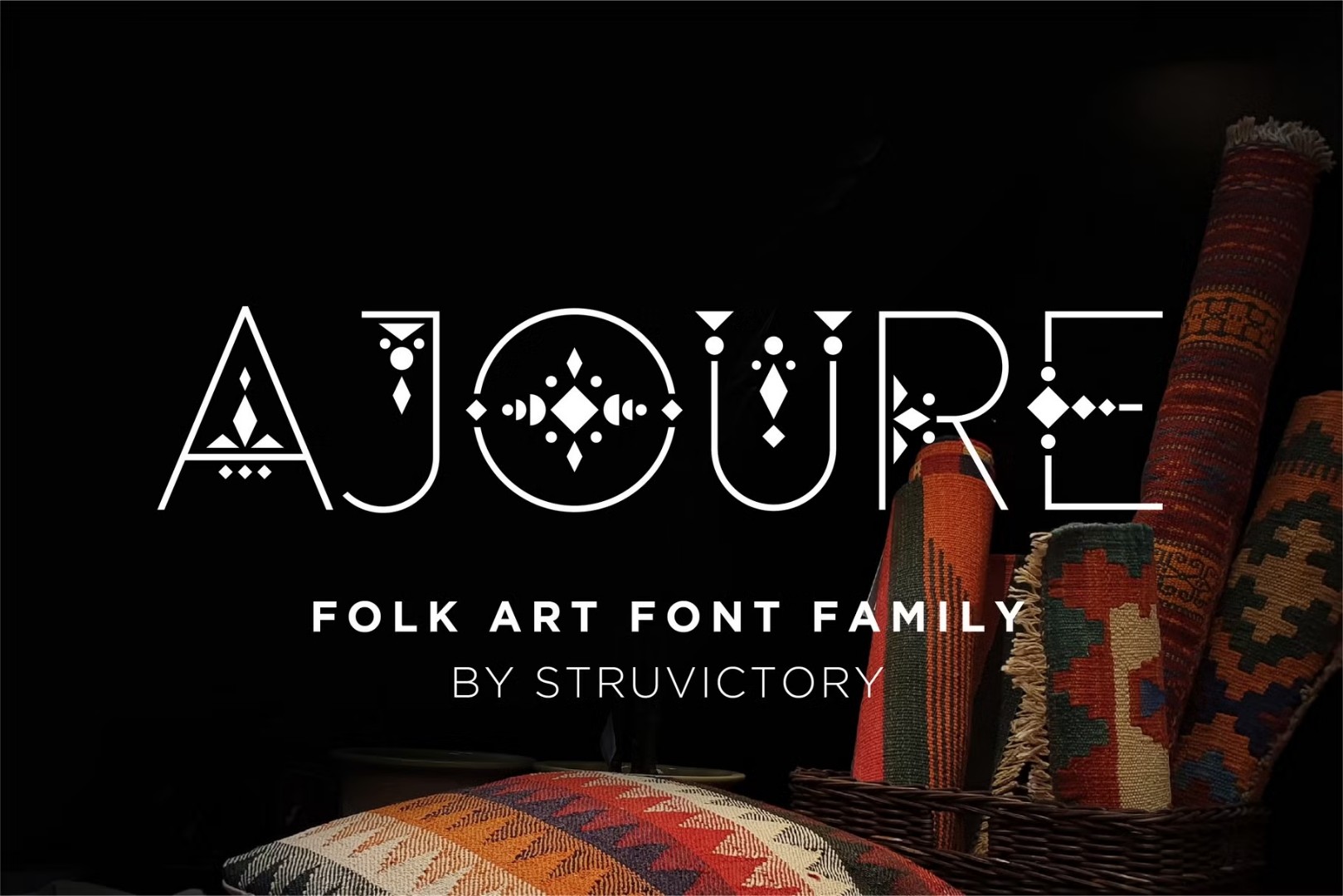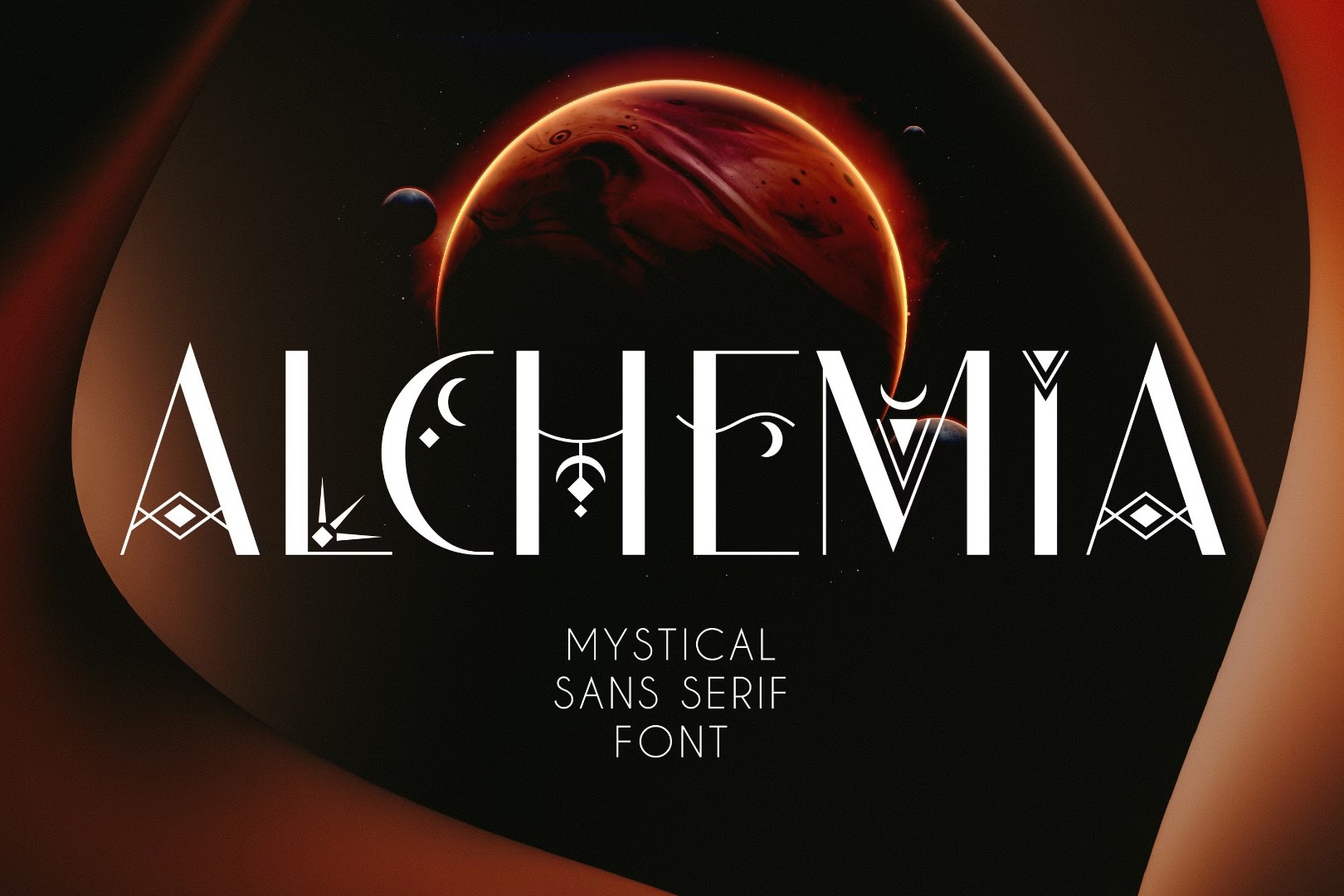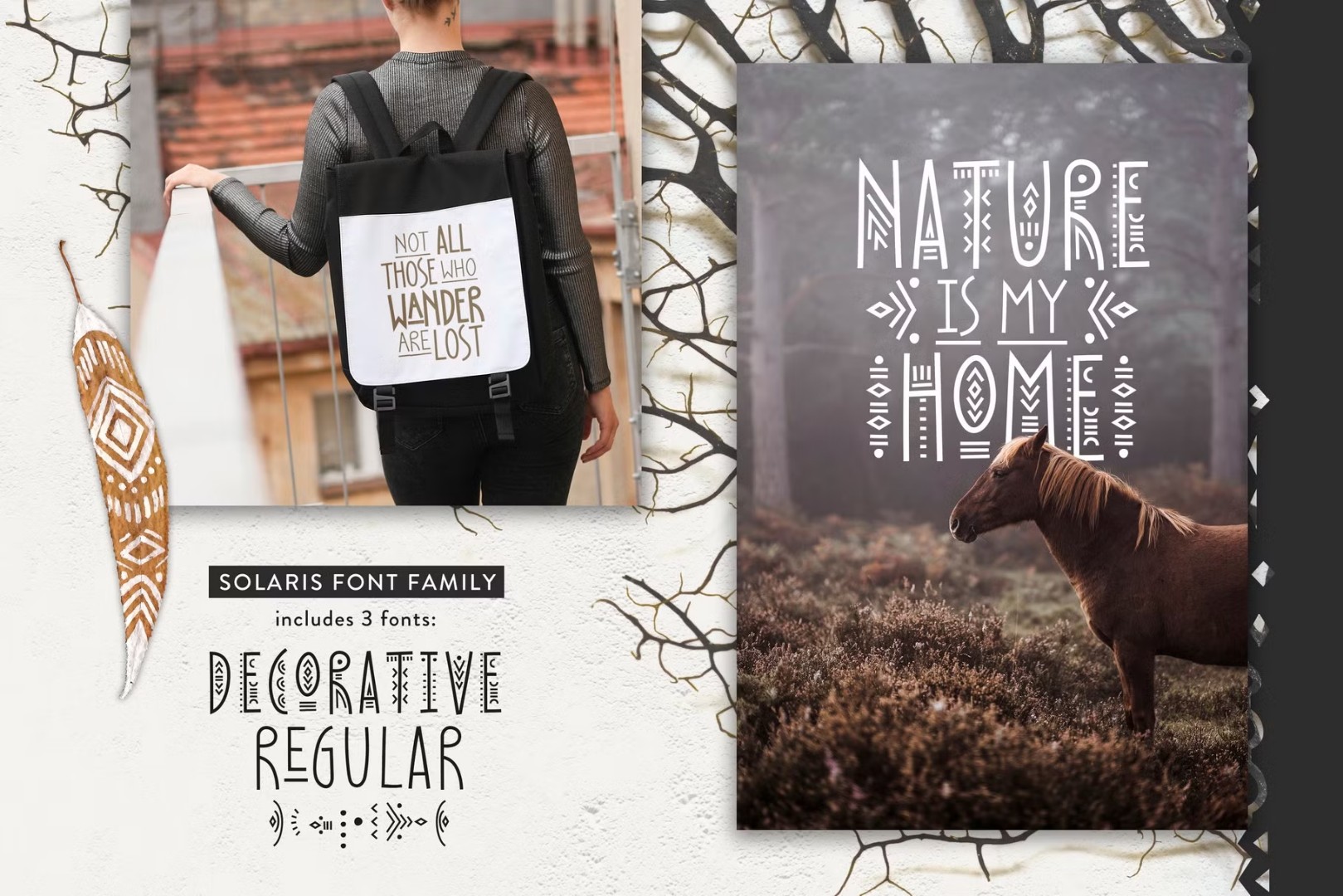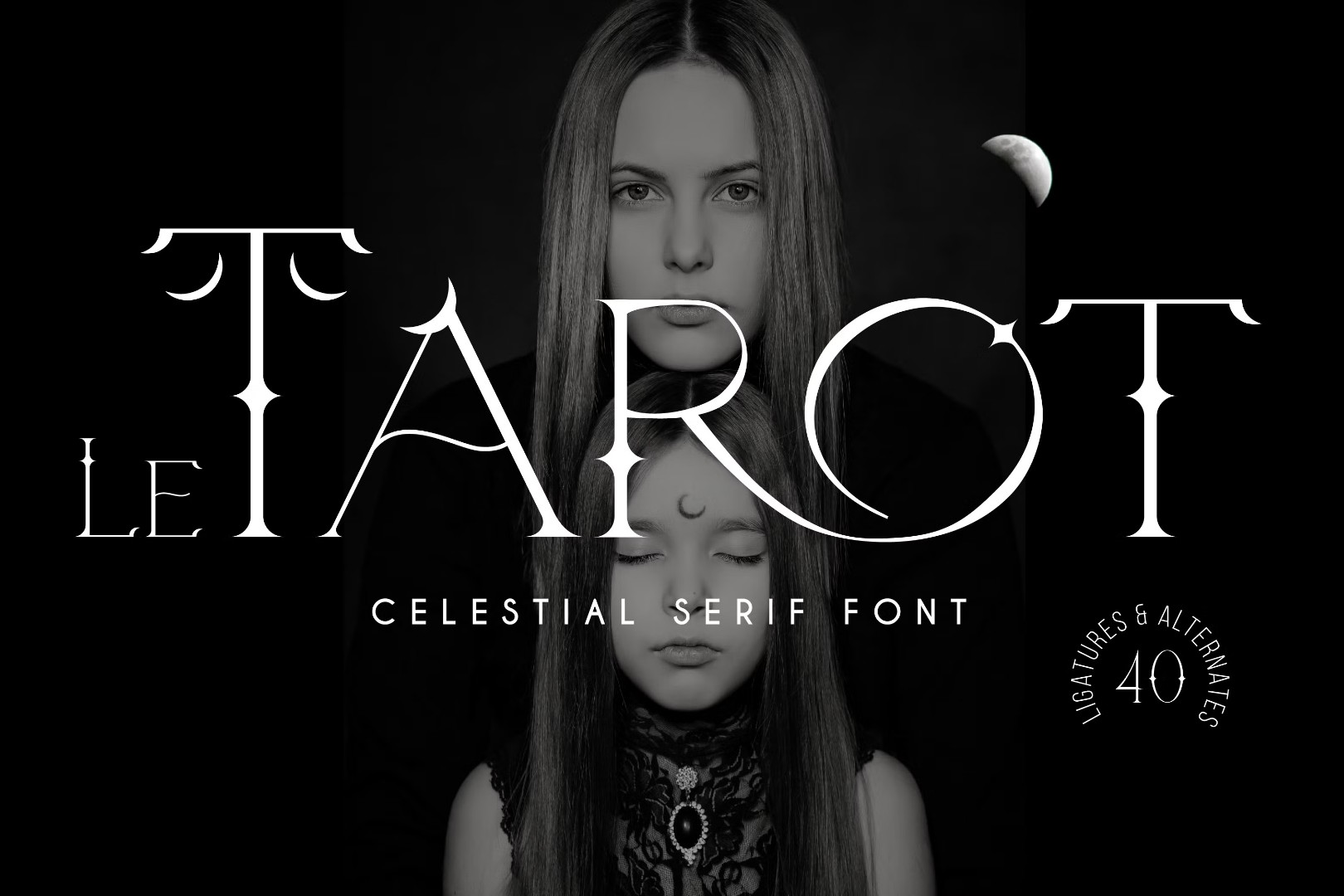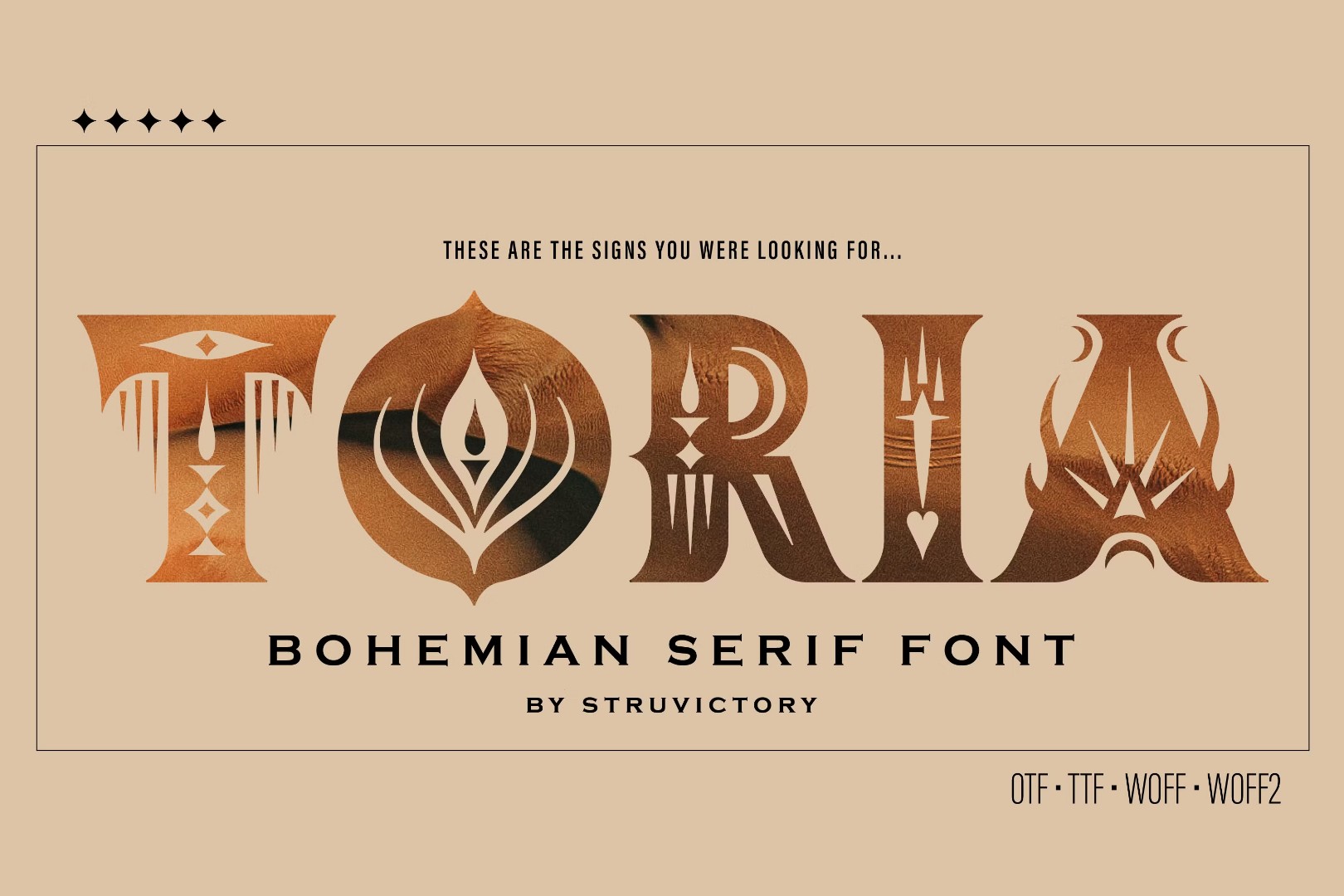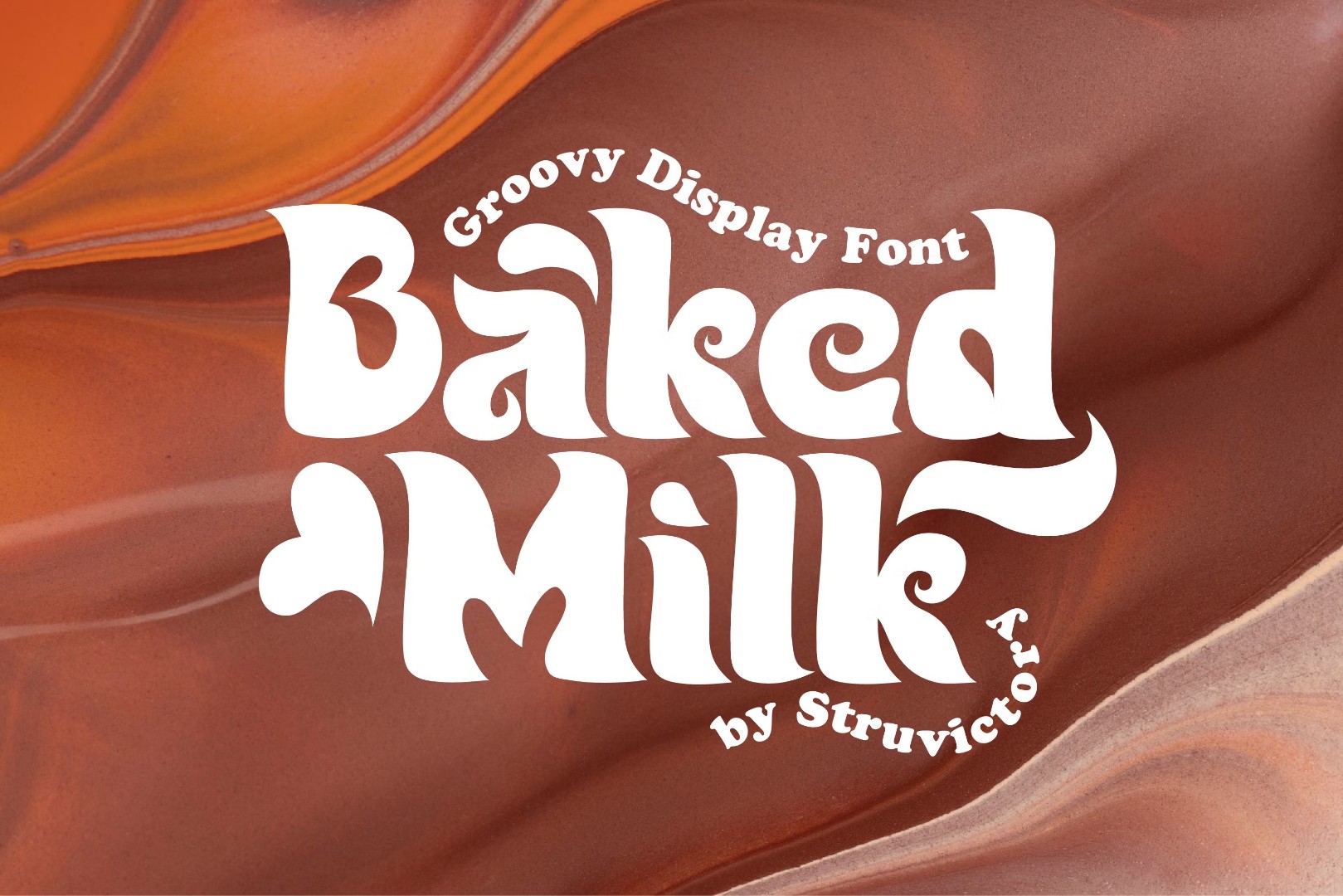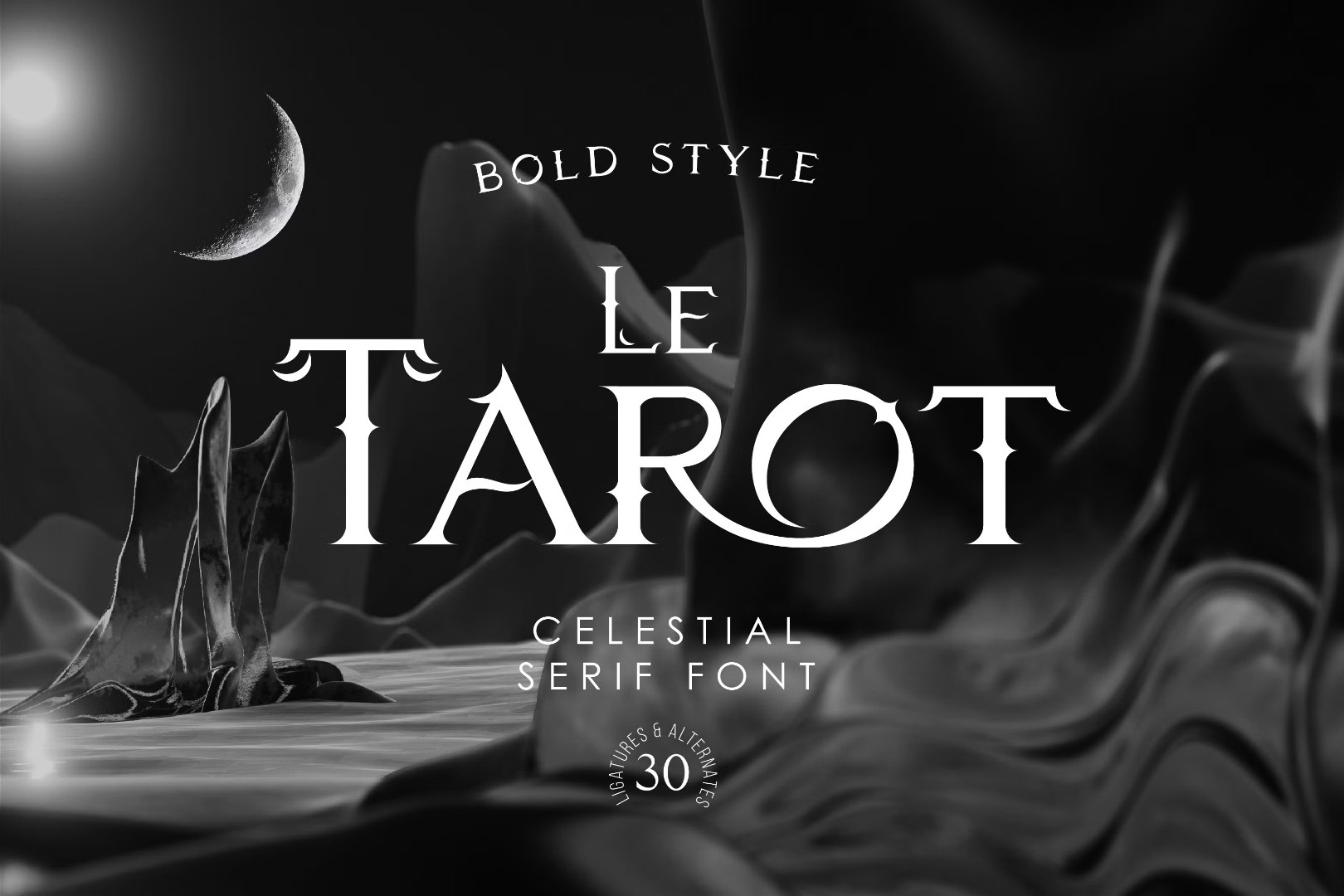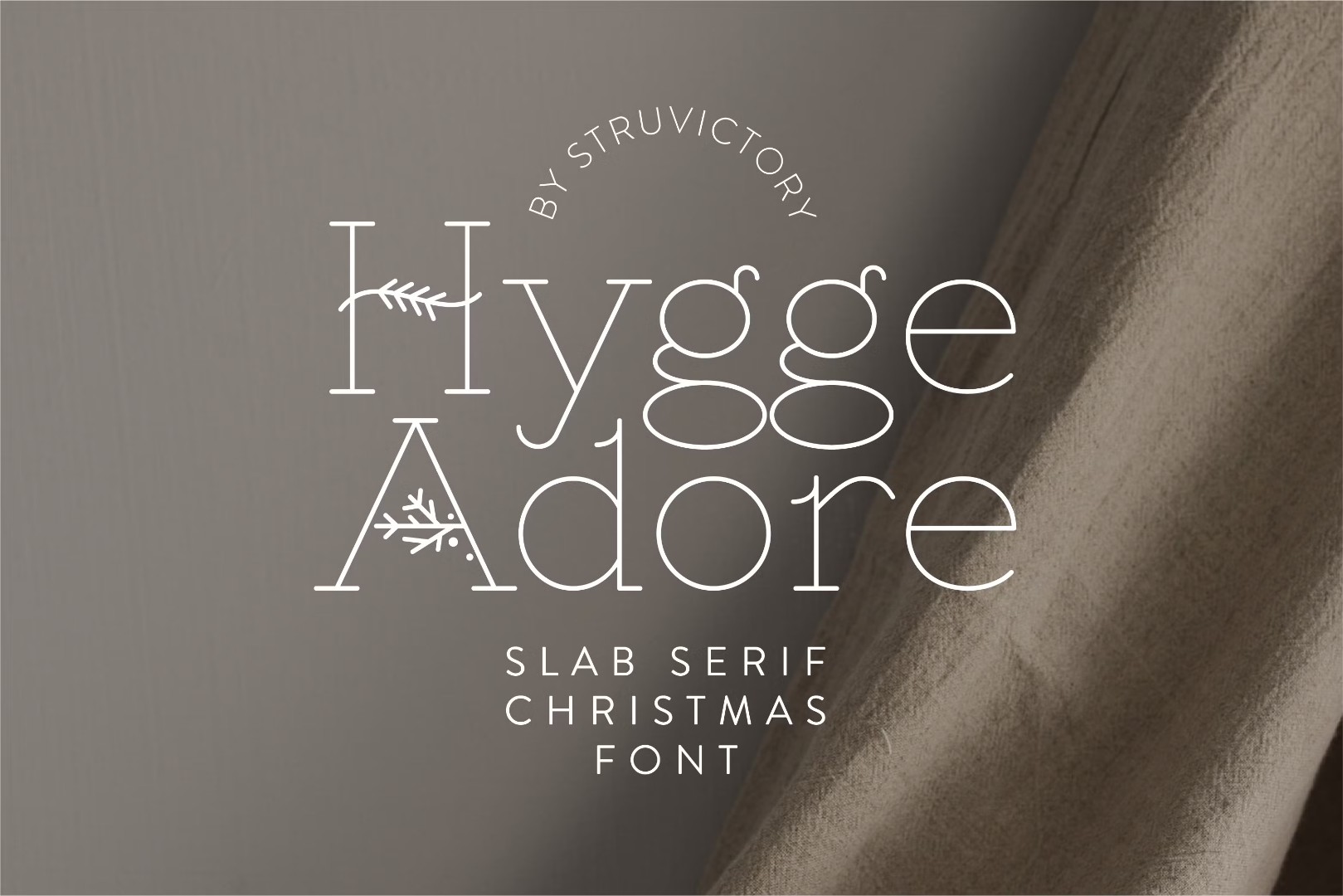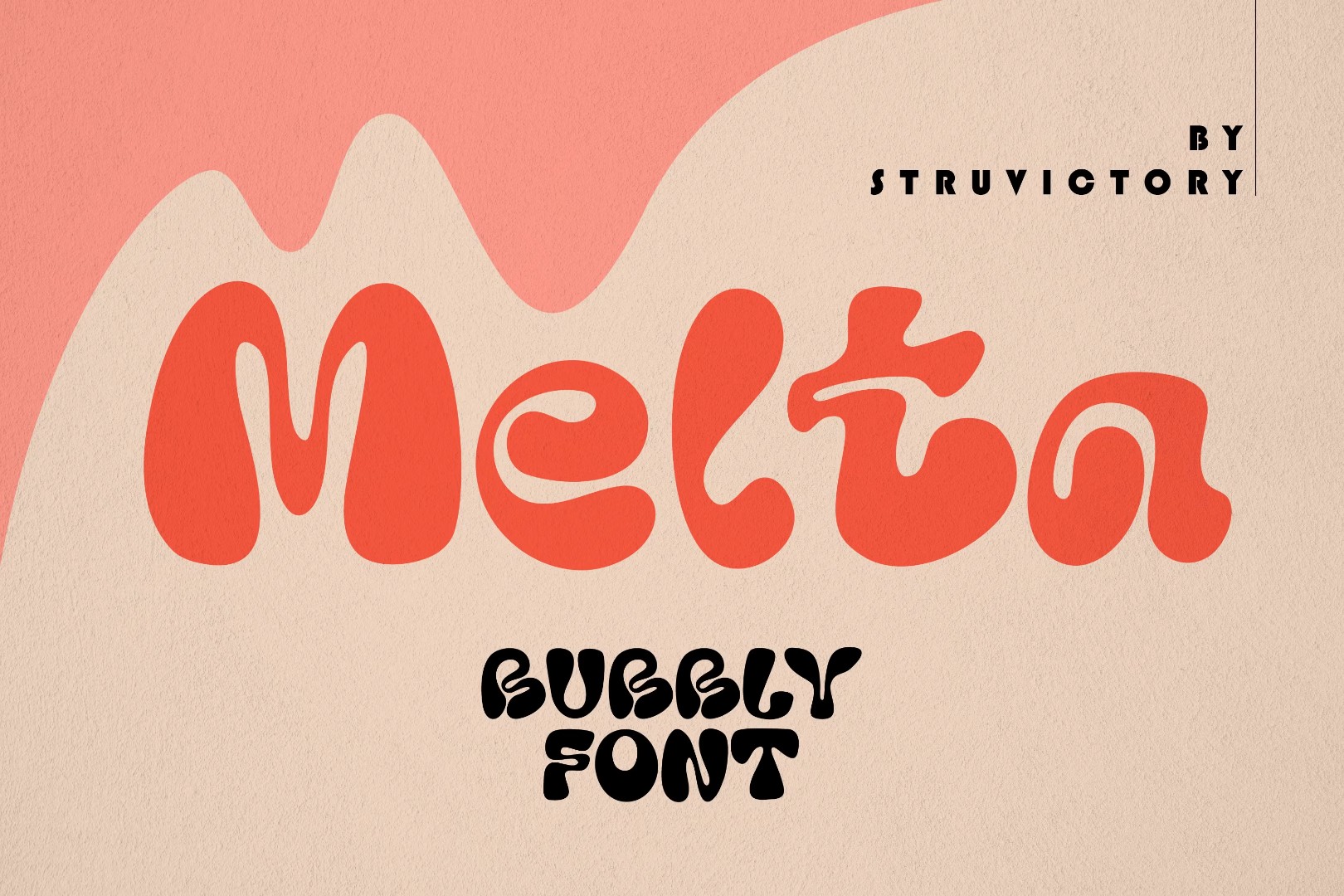
Designer Focus: Struvictory.art
This week we're focusing on fonts by Victoria at Struvictory.art
Ajoure - Folk Art Logo Font Family
Ajoure is a modern thin font inspired by folk aesthetics, adorned with geometric patterns. This typeface offers two versions - Decorative and Symbol. The Decorative version features ornate uppercase letters and thin line lowercase letters, making it perfect for craft products, event design, and typographic posters. With extensive language support, including English, French, German, Italian, Spanish, and more, this font is ideal for branding and packaging materials. Create unique logos and monograms by using individual letters and symbols. Explore the full range of Ajoure fonts and discover a world of creative possibilities!
Alchemia - Mystical Sans Serif Font
ALCHEMIA is a modern sans serif font that combines classic proportions with celestial and bohemian flair. This mystical font features ornate uppercase letters and simple, yet elegant lowercase letters, making it perfect for designs related to astrology, mysticism, spirituality, witchcraft, magic, and esotericism. With extensive language support covering popular languages such as English, French, German, Italian, Spanish, Portuguese, and more, ALCHEMIA is ready to bring your next project to life.
Solaris - Tribal Font Family
Introducing Solaris Tribal, a display font family featuring geometric patterns. This versatile typeface includes Decorative, Regular, and Symbol versions, allowing you to combine fonts for unique designs. Perfect for various projects such as lettering posters, cards, brochures, photo overlays, album covers, branding, packaging, and more. The font has extensive language support and is easy to use in design programs or without any program. With Solaris Tribal, you can create logos, monograms, and even print designs on clothing and crafts. Explore the many possibilities with this beautiful font!
Le Tarot - Celestial Serif Font
Le Tarot is a stunning modern serif font that brings a touch of celestial magic to your designs. With classic proportions and decorations featuring the moon and stars, this font is perfect for projects centered around astrology, mysticism, spirituality, witchcraft, magic, or esotericism. The font includes stylistic alternates and ligatures, making it incredibly versatile. You'll also appreciate its extensive language support, covering English, French, German, Italian, Spanish, Portuguese, Danish, Norwegian, Swedish, Finnish, Estonian, and Turkish. Explore the font's capabilities by typing in any words to see if your desired characters are included.
Toria Bohemian Decorative Serif Font
Welcome to TORIA, a modern serif font that embodies mystical essence in every character. This enchanting font is adorned with symbols like the moon, candle, serpent, sun, rays, torch, and eye, inviting you on a journey into the realm of esotericism. With its decorated uppercase and bold lowercase letters, TORIA offers a unique opportunity to transform your message into art. The font includes popular Latin-based languages, making it easy to find the symbol you need. Whether you're looking for inspiration or seeking to infuse magic into your brand's logo, TORIA is the perfect choice. Explore its mystical power today and discover a new dimension of typography.
Aronia - Thin Line Logo Font
Aronia is a unique thin line uppercase font with floral motives that adds an elegant touch to any design. With both Regular and Symbol versions available, you can combine letters with elements to create a truly one-of-a-kind look. Suitable for feminine business branding, eco-friendly art, social media design, and even packaging (think organic cosmetics and food), Aronia is a versatile font that pairs well with modern graphics like abstract shapes and line art. Whether you're looking to create logos, monograms, or simply add some flair to your design, Aronia has got you covered. With extensive language support and the option to use individual letters and symbols, this font is perfect for creatives looking to make a statement.
Baked Milk - Groovy Display Font
Get ready for a blast from the past with Baked Milk, a display font family that's pure nostalgia in a bottle! This groovy retro-style font is perfect for adding a touch of summery vibes to your designs. With Regular and Symbol Styles to choose from, you can use it for everything from retro posters to menu design, social media branding, and event design. And don't worry about language barriers - Baked Milk has extensive support for languages like English, French, German, Italian, Spanish, and many more. Plus, it features ligatures that will give your text a unique flair. Ready to get your groove on? Check out the demo and see if you need any additional characters!
Le Tarot Bold - Celestial Serif Font
Le Tarot Bold is a modern serif font with celestial motives, created in classic proportions and decorated with moon and stars. This unique font includes stylistic alternates and ligatures, making it perfect for designs related to astrology, mysticism, spirituality, witchcraft, magic, and esotericism. The font features extensive language support, covering languages such as English, French, German, Italian, Spanish, Portuguese, Danish, Norwegian, Swedish, Finnish, Estonian, and Turkish. Additionally, Le Tarot Bold includes special character variations for symbols like "a", "d", "i", "j", "m", "o", "q", "t", and "u".
Hygge Adore - Christmas Serif Font
Hygge Adore is a charming slab serif font that embodies the warmth of winter with delicate patterns in its uppercase letters, inspired by classic Christmas fonts and Scandinavian motifs. Perfect for craft products, branding, and packaging, this font is ideal for handmade goods like candles, soap, tea, and coffee. Use individual letters and symbols to create unique logos and monograms. The font also includes stylistic alternates for all uppercase symbols and numbers, without patterns, providing versatility in your design. With extensive language support for multiple languages, including English, French, German, Italian, Spanish, Portuguese, Danish, Norwegian, Swedish, Finnish, Estonian, and Turkish, Hygge Adore is a delightful addition to any design project.
Melta - Bubble Groovy Font